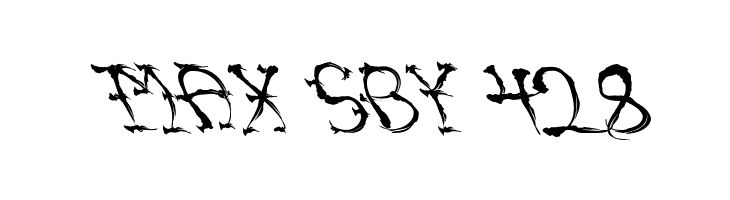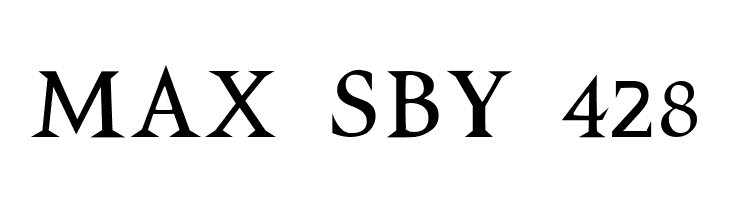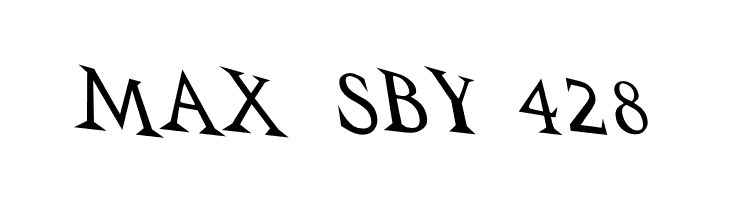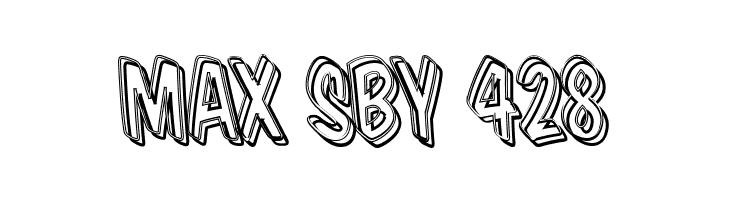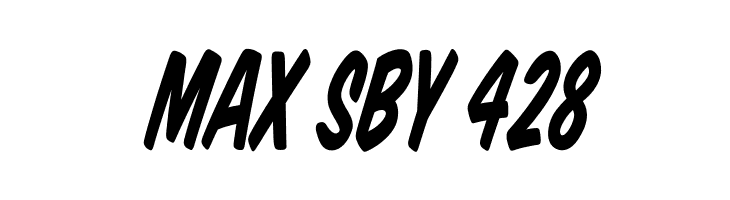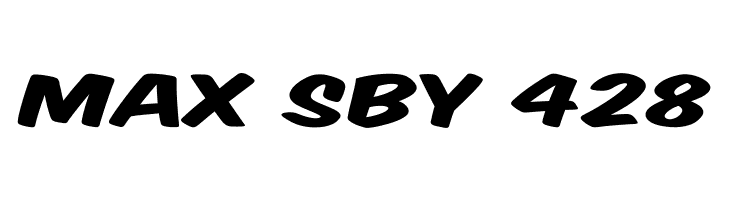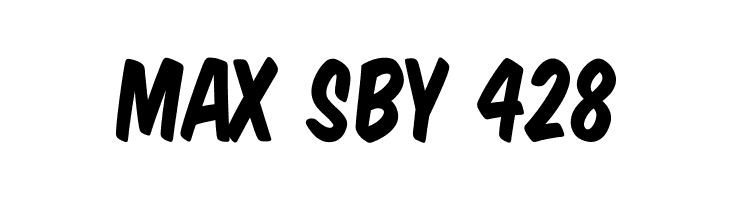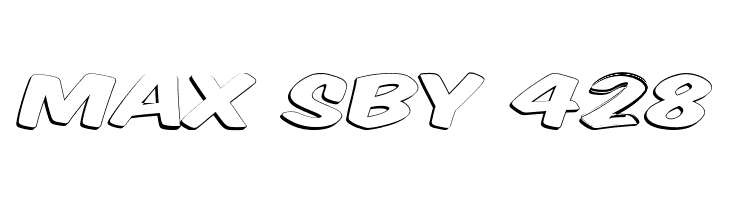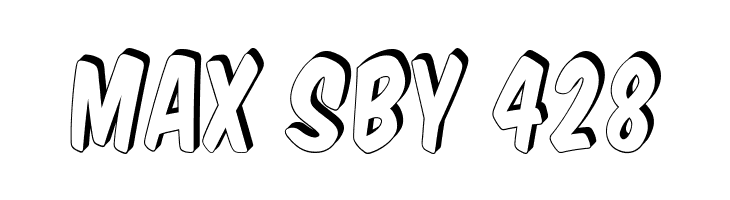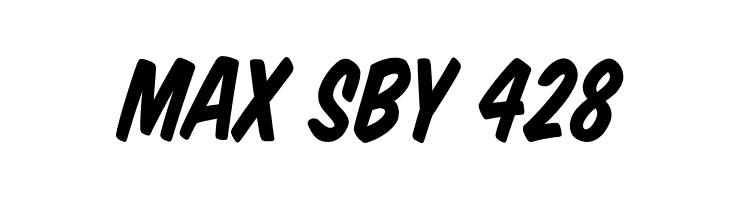
A bold, playful font with rounded edges and a dynamic, handwritten style.
A playful, italicized handwritten font with bold, rounded strokes.
A playful, comic-style handwritten font with bold, rounded characters.
A bold, playful, hand-drawn font with rounded edges and a whimsical style.
A bold, playful handwritten font with smooth curves and a casual style.
A bold, comic-style handwritten font with a playful and dynamic appearance.
A bold, playful handwritten font with thick, rounded strokes and a slightly slanted orientation.
A bold, italicized, comic-inspired font with thick, rounded strokes.
A bold, italicized font with a playful and dynamic style.
A bold, edgy font with thorn-like extensions and chaotic strokes.
A playful, handwritten font with rounded edges and a casual style.
A bold, playful handwritten font with a comic book style.
A bold, playful, and italicized font with rounded strokes and close spacing.
A playful, comic-style handwritten font with smooth curves and a dynamic feel.
A bold, comic-style font with a playful and informal design.
A bold, italicized font with a playful, comic-like style.
A bold, italicized font with a playful and dynamic style.
A playful, handwritten italic font with a comic-like style.
A playful, hand-drawn style with a krumpled, comic-like appearance.
A playful, bold handwritten font with thick strokes and rounded edges.
A playful, bold outline font with rounded edges and a tall, slightly condensed style.
A bold, playful handwritten font with a dynamic and energetic style.
A bold, playful handwritten font with a dynamic slant.
A bold, 3D-style font with playful outlines and a dynamic appearance.
A bold, italic font with dynamic, slanted characters and thick strokes.
A bold, 3D tilted font with a playful, cartoon-like style.
A bold, dramatic serif font with sharp, angular serifs and a modern, edgy style.
A bold, angular font with sharp edges and a dynamic, edgy style.